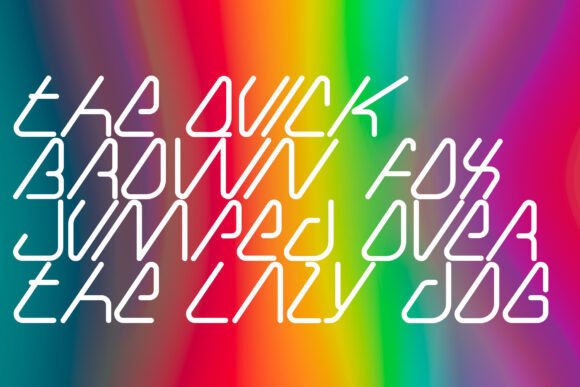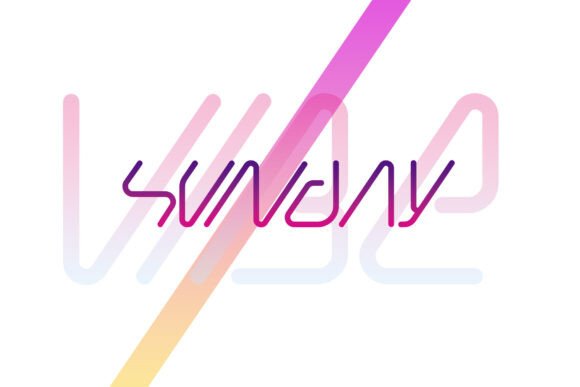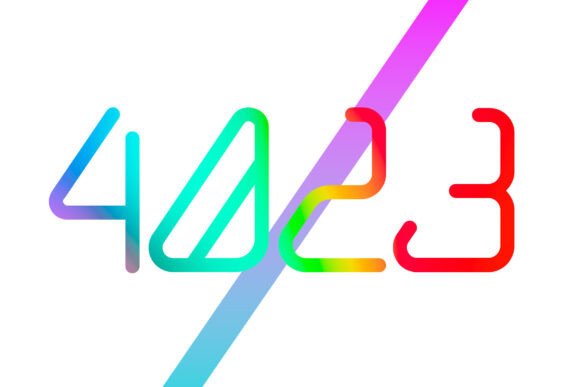
Introduction to Maplyne Font
Have you ever strolled through a bustling city street at night, mesmerized by the vibrant glow of neon signs? The way the light dances across the letters, casting a spell of excitement and energy, is truly magical. As a designer, I’ve always been fascinated by the potential of neon signs to elevate a brand’s identity and create a lasting impression. That’s why I’m thrilled to introduce you to the Maplyne Font, a game-changing design resource that brings the magic of neon to your creative projects.
With its sleek, one-line stroke design, the Maplyne Font is the perfect addition to any designer’s toolkit. Whether you’re working on a free download project or a high-quality design for a client, this font is sure to add a touch of sophistication and glamour. Plus, its transparent background makes it easy to apply to a variety of creative ideas, from logos to signs.
Key Features of Maplyne Font
- Unique, modern font style with a transparent background, perfect for graphic design
- Includes a wide range of characters, including uppercase and lowercase letters, numbers, and punctuation
- Designed to be versatile and adaptable for various design applications, from logos to typography
Honest Review: Maplyne Font
I recently came across the Maplyne Font, and I’m excited to share my thoughts with you. This font has been a great addition to my design resource library, and I’m glad I decided to give it a try.
- The Maplyne Font offers a unique and creative style that’s perfect for projects that require a touch of sophistication.
- The high-quality design makes it suitable for a wide range of applications, from branding to publishing.
- The transparent background feature makes it easy to use with various backgrounds and images.
- The font may not be as versatile as some other fonts on the market, which can limit its use in certain creative projects.
Overall, I’m impressed with the Maplyne Font, and I think it’s a great design resource for anyone looking to add some creativity to their projects. While it may have some limitations, I believe the benefits far outweigh the drawbacks.
Tips for Getting the Most Out of Maplyne Font
Maplyne Font is a high-quality design resource that can add a touch of sophistication to your creative project. Here are a few tips for getting the most out of it:
Use Maplyne Font on a transparent background to create a sense of depth and dimension.
Combine Maplyne Font with other design elements to create a unique and eye-catching design.
Experiment with different font sizes and styles to create a visually appealing design.
Maplyne Font is a versatile design resource that can be used in
Q: Does the Maplyne Font have a transparent background?
Yes, the Maplyne Font has a transparent background, making it easy to use with images and graphics that require a seamless integration. The transparent background also allows you to customize the font to fit your design needs and preferences.